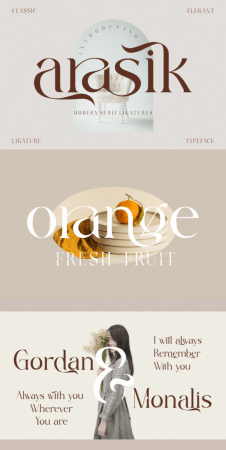
Arasik is a slim and stylish serif font. It is PUA encoded which means you can access all of the glyphs and swashes with ease! Add it to any of your designs, and enjoy the results!